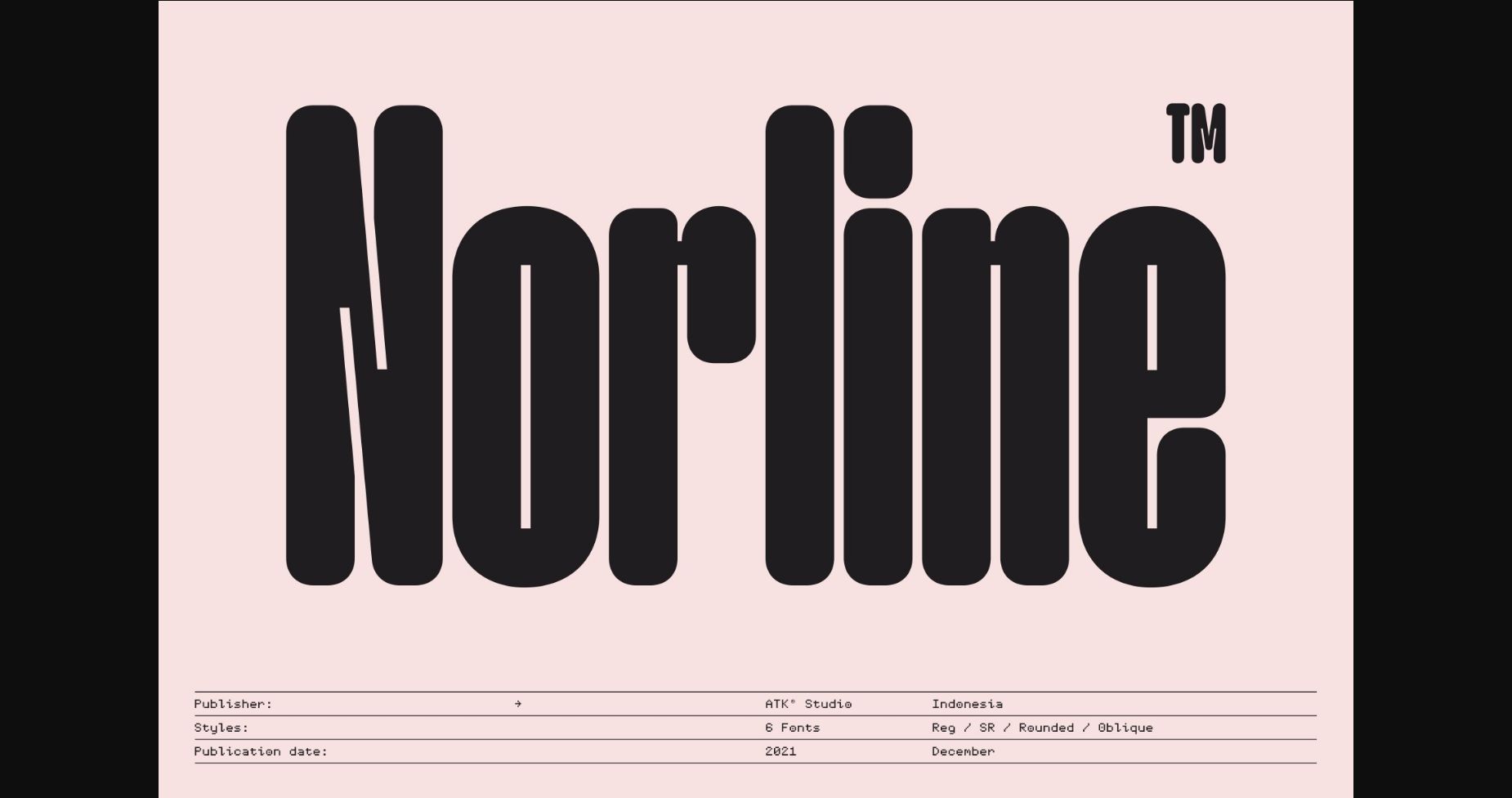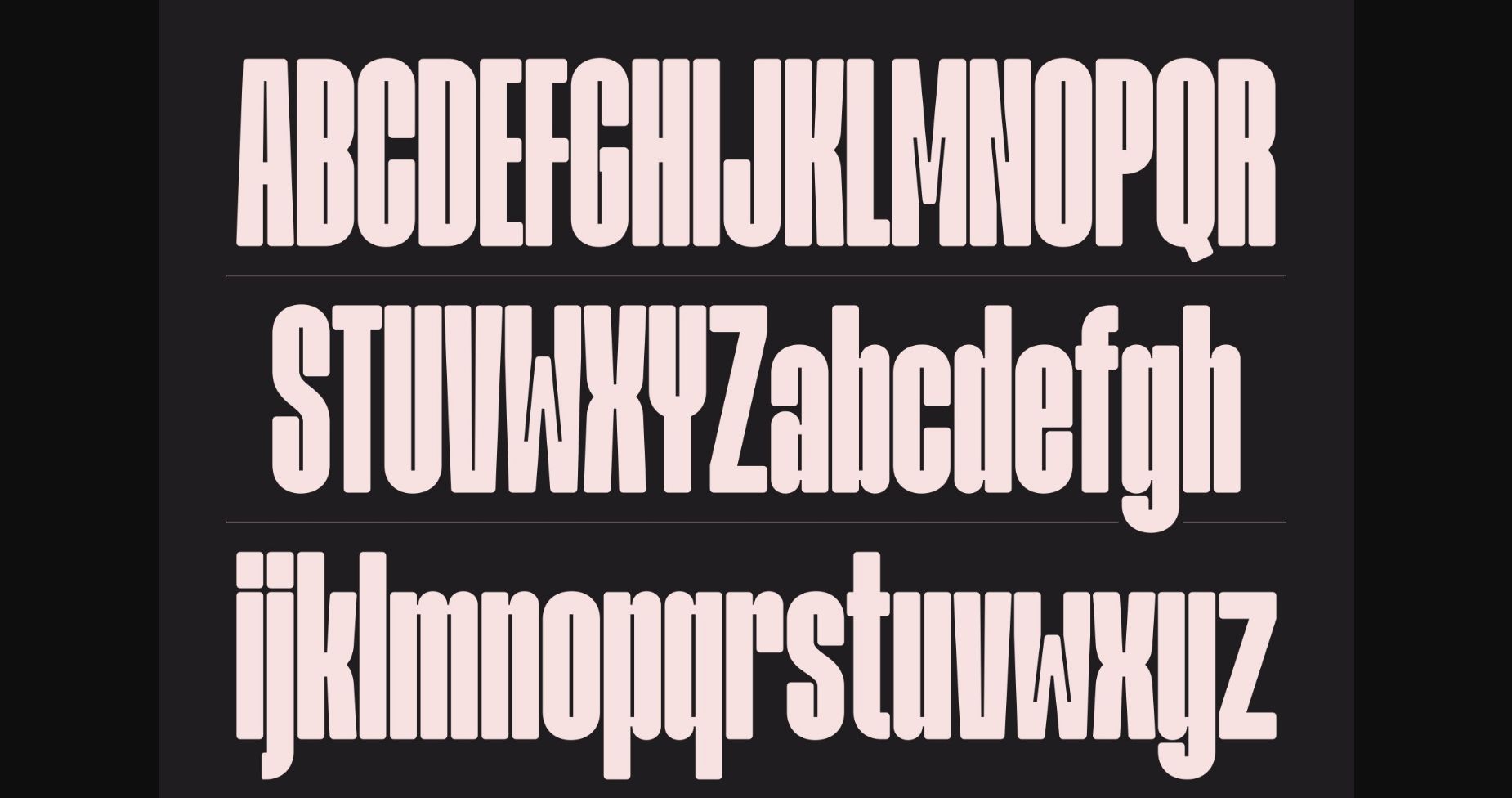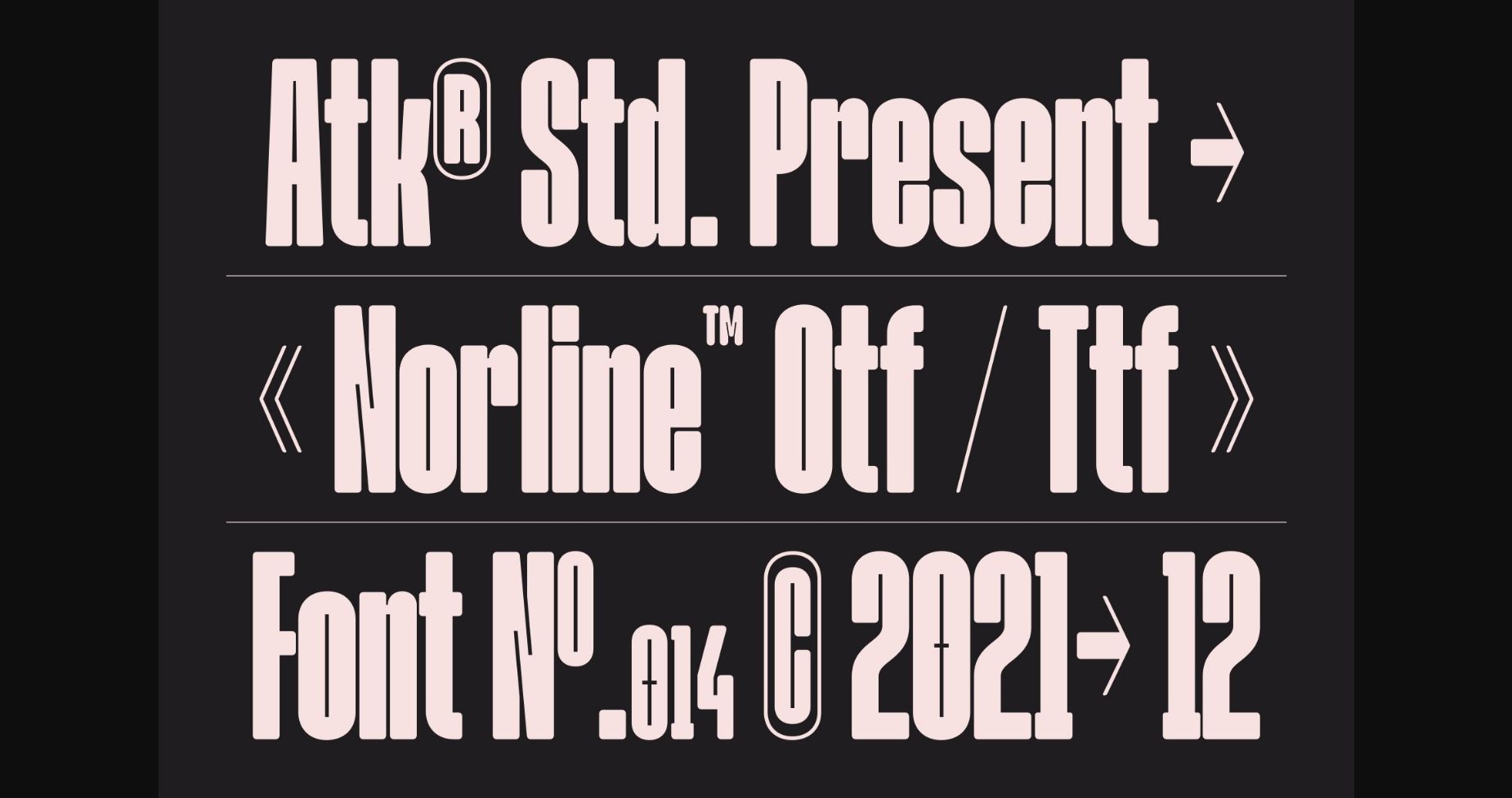
About Norline Font
Norline is a condensed sans-serif typeface created to be used for bold titles with distinctive shapes. It is perfect for product packaging, branding project, magazine covers, social media, wedding, or just used to express words above the background.